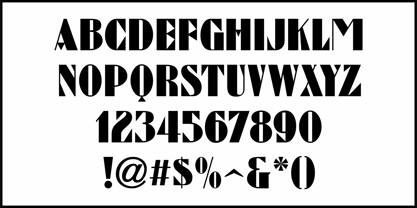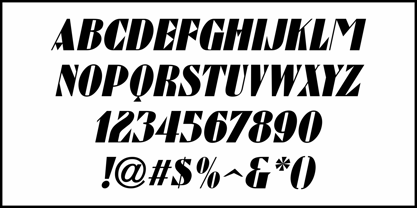
French Display Sans JNL
by Jeff Levine
The French Display Sans JNL Font Family was designed by Jeff Levine and published by Jeff Levine. French Display Sans JNL contains 2 styles and family package options.
A "Thick & Thin Deco" alphabet (similar to the many variations on Futura Black) was found within the pages of the 1930s vintage French lettering book "32 Alphabets Modernes" and is now available as French Display Sans JNL in both regular and oblique versions, with more unique type designs covering many styles and historical periods at Jeff Levine Fonts.